It looks like Monotype Modern, on which Computer Modern is based. Also MlModern is available, with somewhat heavier strokes.
The boldface is a bit different, though.
Output with Computer Modern (actually European Modern)
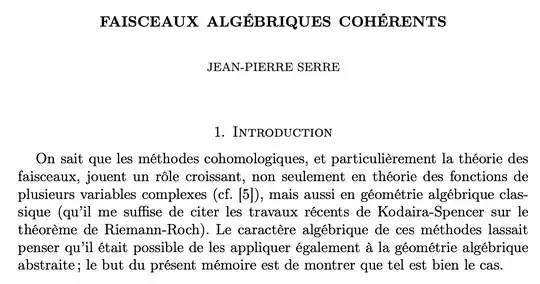
Output with MlModern